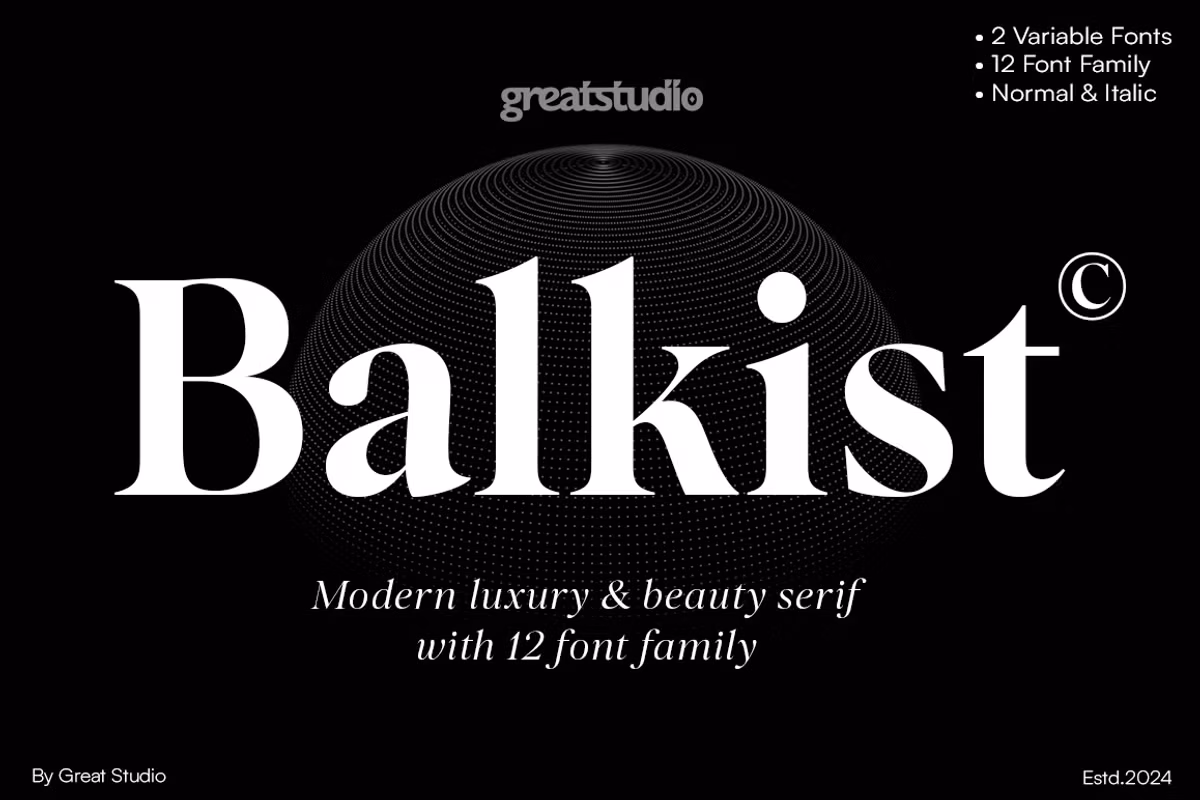
Introduce a versatile and stylish font collection with Balkist Font Family Free Download. This font family offers a range of weights and styles, making it ideal for a variety of design projects, from modern branding and editorial design to websites, packaging, and logos.
Balkist combines clean, geometric letterforms with elegant curves, offering a sleek, contemporary aesthetic. The family includes multiple weights, uppercase and lowercase letters, numerals, punctuation, and multilingual support, providing you with full flexibility for testing diverse layouts and designs.